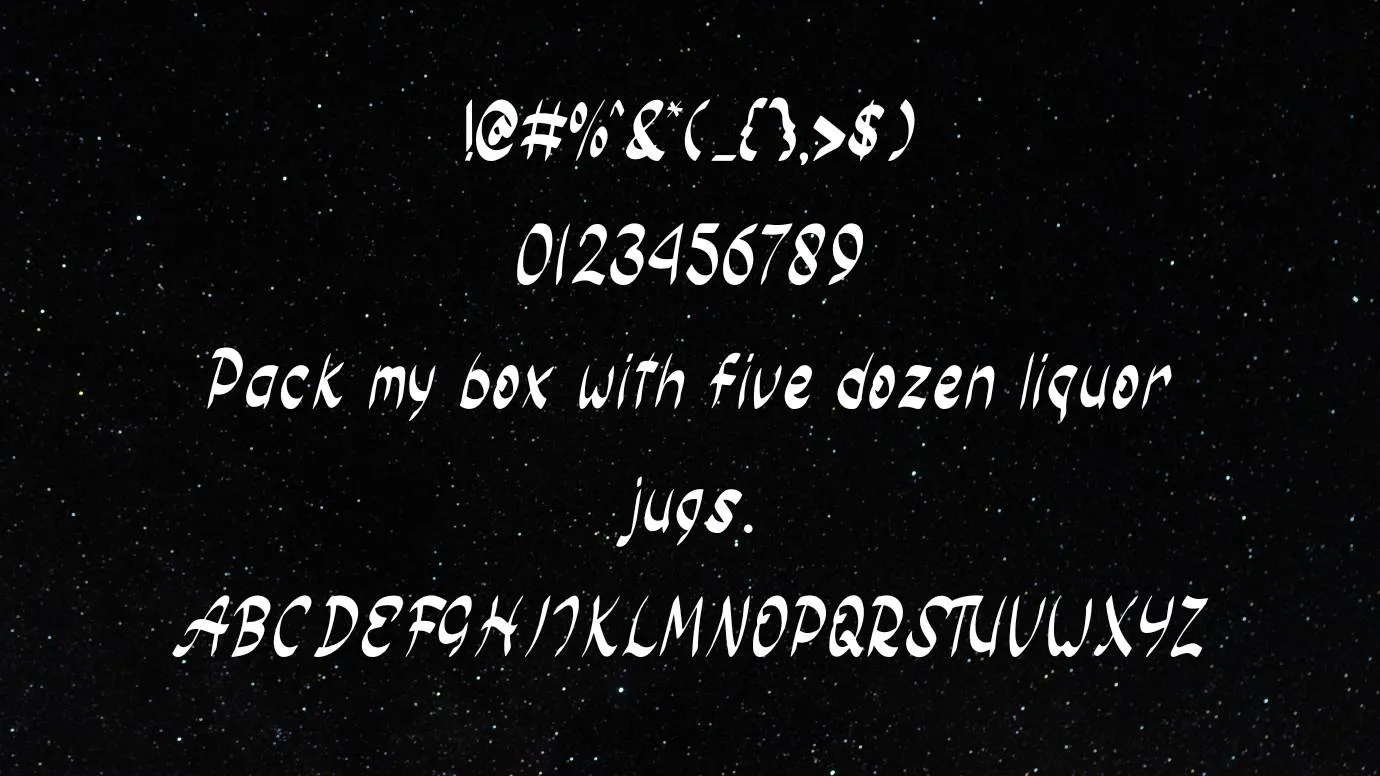
Jandles Font is designed by Typodermic Fonts it is a unique fancy style. This font has an extremely bold feature that contributes to its clear and obvious reading. It has recognized elements that may be utilized in many designs.
This font design includes both lowercase and uppercase character sets. The free version can as be seen here. It also includes contemporary terminology, special symbols, and numerals. Numerous projects can be made using this typeface. If you need a typeface to give your project a unique look.
This design approach may be used to produce any kind of design. Both lowercase and uppercase letters are used in it. There are several characteristics in the font design. The typeface is ideal for projects that demand for a special look because of its clean, natural design. It is an excellent choice for tasks that need an original and creative touch.
Unique Features of Jandles Font
Titles and symbols are perfectly shown in the typeface. The typeface features unique symbols as well as that are ideal for creating unique designs. It is a suitable option if you’re seeking a trendy and modern font.
Developers often use typeface while creating images with a natural or naturalistic vibe. Additionally, letters might be used for more enjoyable tasks like promotional products or kid’s books and magazines.
Jandles Font Preview
| Name | Jandles Font |
| Designer | Typodermic Fonts |
More Info About the Jandles Font
Additionally, you may use this typeface for publications like business cards, flyers, and posters. Numerous industries might make use of this typeface family. It is displayed on international airlines, prominent world-class colleges, and a worldwide organization has also used this typeface as its official font, to name a few important locations where it may be found.
It has received a lot of appreciation all across the world. This typeface is also excellent for documentation needs and may be used for various assignments, website headers, and official jobs. It will be ideal for logos, art books, newspaper and magazine headings, postcards, items, brands, printing on clothing, and many other things.
Several private projects can be done while using this stunning font, it is the best option for creating website designs, channel designs, and thumbnails. It is highly recommended for logo designing for any kind of brand name and blog design.
Where Can Jandles Font Be Used?
It can be used in several projects with beautiful designs and appears in advertisements, titles, trademarks, headers, body texts, billboards, and much more, this typeface has gained a lot of popularity.